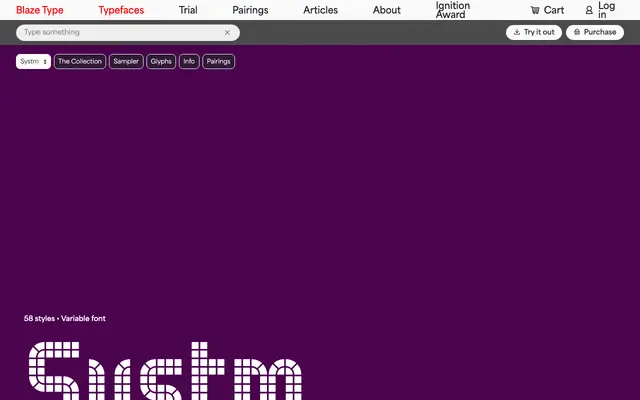
A 58-style modular display collection from Blaze Type, built across nine sub-families each applying a distinct structural treatment to a shared geometric skeleton.
Nine sub-families share a common geometric armature but depart into radically different surface treatments: stencil cuts, dotted pixel fills, binary fragmentation, origami faceting, hybrid merges and stripped floor forms. Each family runs through six or more weights from UltraLight to Black, and a variable font is included across the collection. The result is a single system flexible enough to produce everything from restrained geometric text to densely textured display work.
Systm is a modular display collection built around a geometric sans skeleton, with sub-families defined by structural treatments such as stencil cuts, binary fragmentation, dotted pixel fills, origami faceting and floor-level stroke reductions rather than weight variation alone.